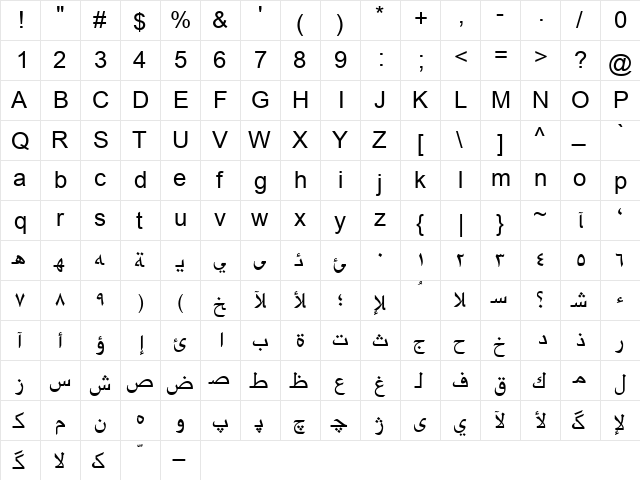
mssansar Regular
Design Context for mssansar Typeface
mssansar offers clean, dependable letterforms without strong stylistic allegiance, making it a practical choice for designers who need flexibility.
Pro Tip: Use mssansar in both headline and body roles to test its range before committing to a single application.